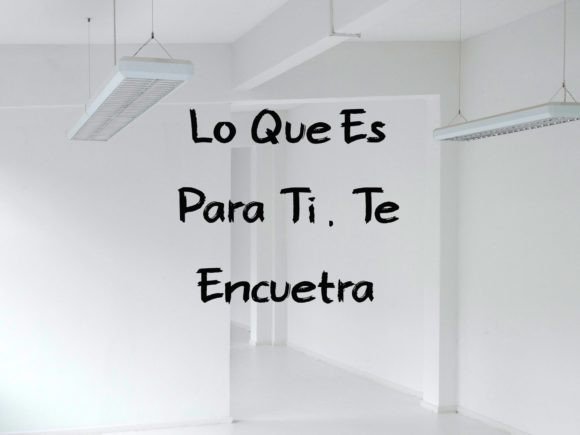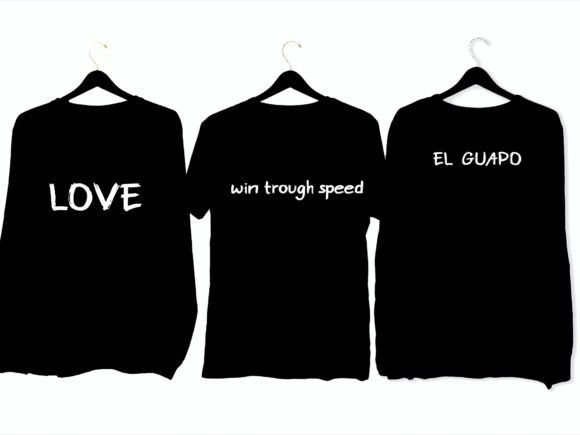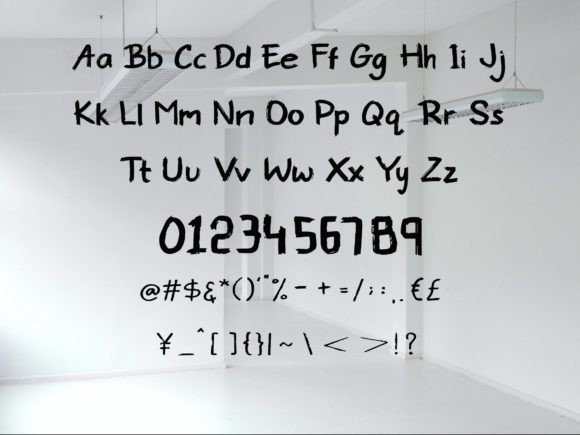
Introducing El Guapo Font: Elevate Your Designs with a Simple yet Stunning Brush Handwritten Style
Are you on the hunt for a font that adds a personal touch to your creative projects? Look no further than El Guapo Font, a beautifully simple brush handwritten font designed to bring a unique charm to your designs. Whether you’re working on a cover album, postcard, or any other creative endeavor, El Guapo is the perfect companion to help you achieve your vision.
What Makes El Guapo Font Stand Out?
El Guapo Font is characterized by its effortless, handwritten style that exudes a sense of simplicity and elegance. The brush strokes are delicate and fluid, giving the font a natural, organic feel that’s perfect for a wide range of applications. From crafting eye-catching headlines to adding a personal touch to your body text, El Guapo Font is versatile and adaptable, making it an excellent addition to any designer’s toolkit.
El Guapo Font is specifically designed to be compatible with popular design tools like Photoshop, making it easy to integrate into your workflow. Whether you’re a seasoned designer or a crafty DIY enthusiast, you’ll appreciate the flexibility and ease of use that El Guapo offers. Here are just a few ideas for projects where El Guapo Font truly shines:
- Cover Albums: Add a personal touch to your music albums or photo collections with El Guapo’s charming handwritten style.
- Postcards: Create eye-catching postcards that stand out from the crowd with El Guapo’s unique and stylish font.
- Invitations: Make your invitations, party cards, or wedding announcements truly special with El Guapo’s elegant and simple design.
- Branding: Use El Guapo Font to create a distinctive brand identity that sets you apart from the competition.
Key Features of El Guapo Font
So, what makes El Guapo Font an excellent choice for your next project? Here are some key features to consider:
- Simple yet Stunning: El Guapo’s brush handwritten style is both elegant and approachable, making it perfect for a wide range of applications.
- Versatile: Use El Guapo Font for everything from headlines and titles to body text and captions.
- Easy to Use: El Guapo Font is designed to be user-friendly, making it accessible to designers and crafters of all skill levels.
Tips for Getting the Most Out of El Guapo Font
To truly make the most of El Guapo Font, here are a few tips to keep in mind:
- Experiment with Sizes: Play around with different font sizes to find the perfect balance for your design.
- Pair with Other Fonts: Combine El Guapo Font with other fonts to create a unique and visually appealing typography.
- Adjust the Color: Take advantage of El Guapo’s versatility by experimenting with different colors and textures.
El Guapo Font is a beautifully simple brush handwritten font that’s perfect for designers and crafters looking to add a personal touch to their creative projects. With its effortless style, compatibility with Photoshop, and versatility, El Guapo is an excellent addition to any design toolkit. Whether you’re working on a cover album, postcard, or any other project, El Guapo Font is sure to elevate your designs and help you achieve your creative vision.